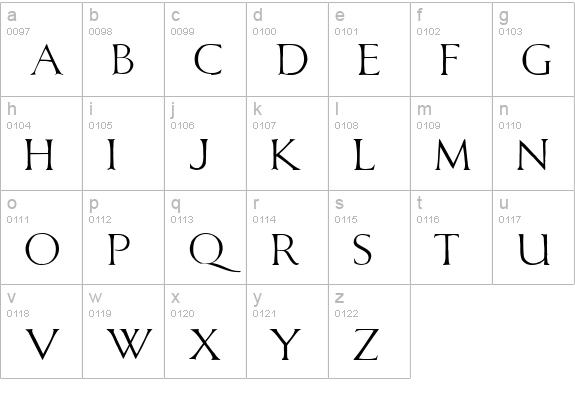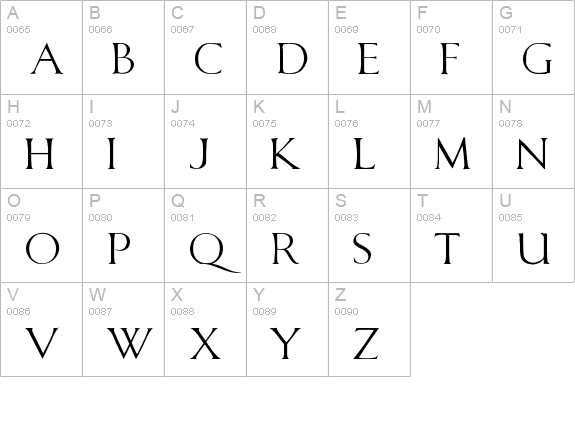
CaligulaDodgy Font Details
CaligulaDodgy is a unique and eye-catching font that combines elegance with a touch of edginess. Its bold and dynamic strokes make it perfect for grabbing attention and adding a modern twist to any design project. Whether you're looking to create striking headlines, stylish logos, or captivating social media posts, CaligulaDodgy is sure to make a statement. This versatile font is freely available to download at FontsMarket.com, making it easily accessible for designers, artists, and creators looking to add a touch of flair to their work. With its distinctive style and bold presence, CaligulaDodgy is the perfect choice for those who want to stand out from the crowd and make a lasting impression.